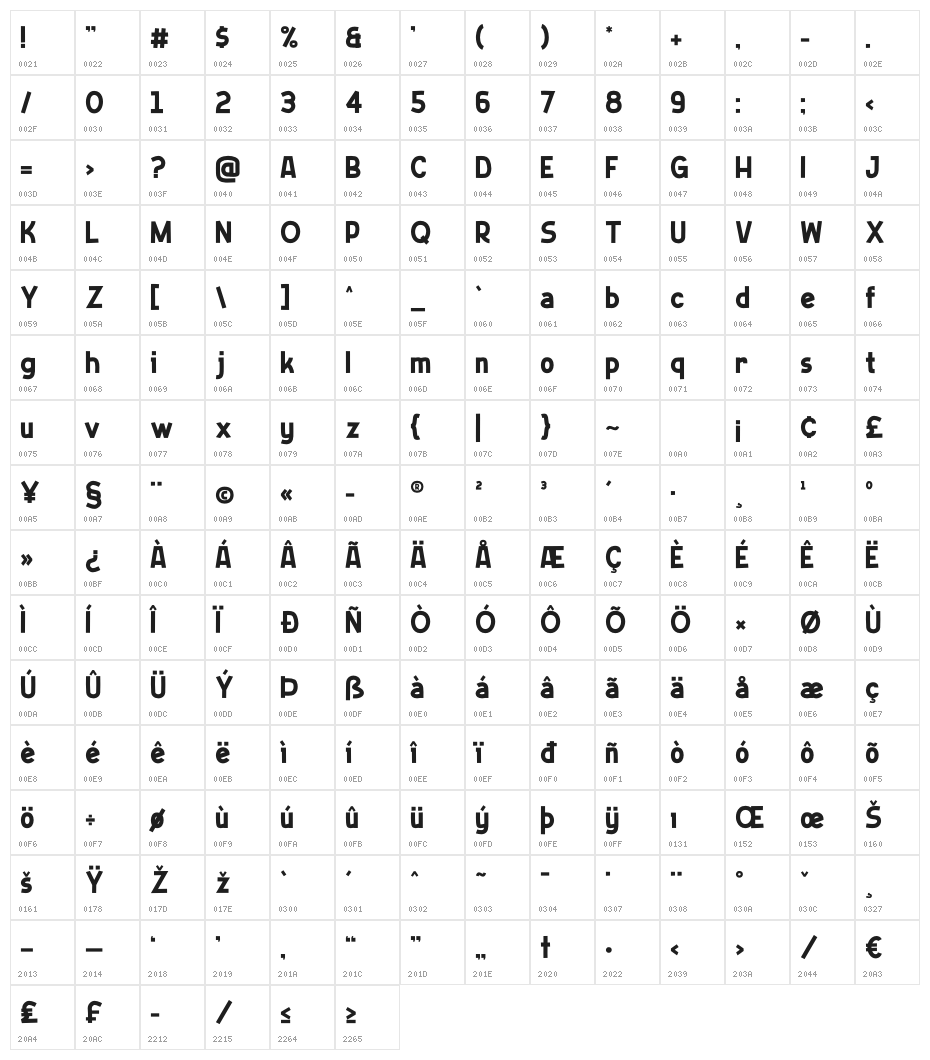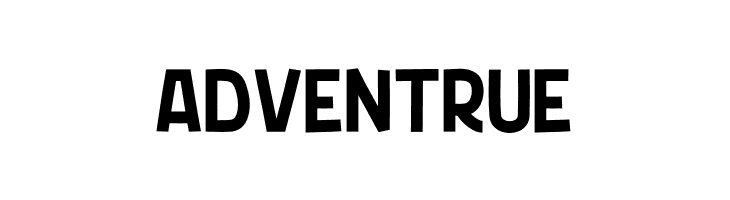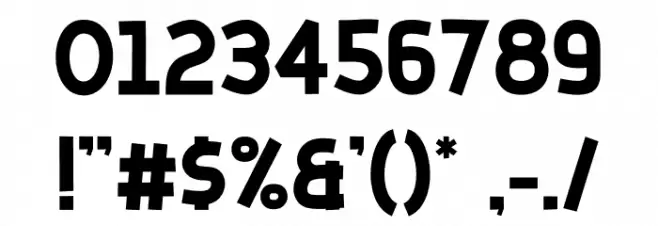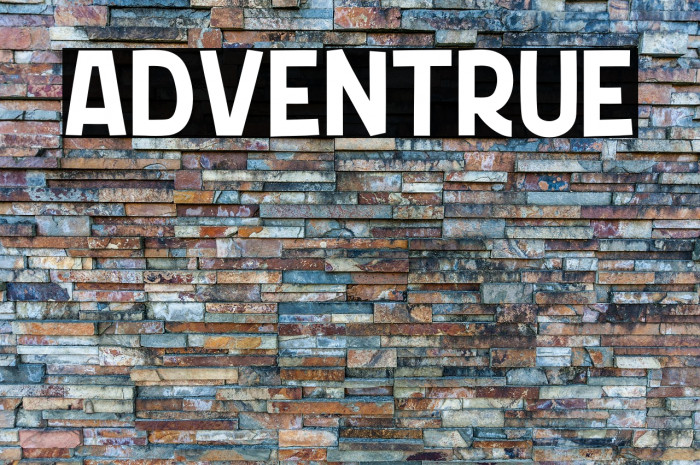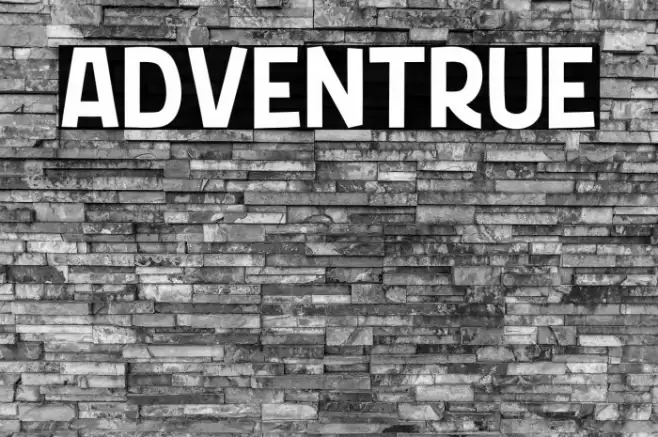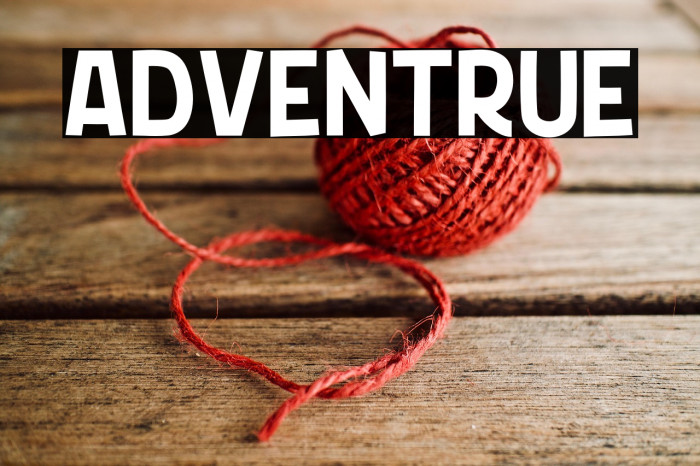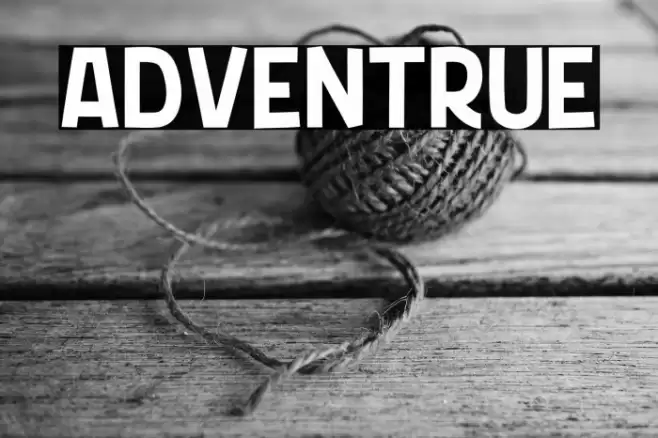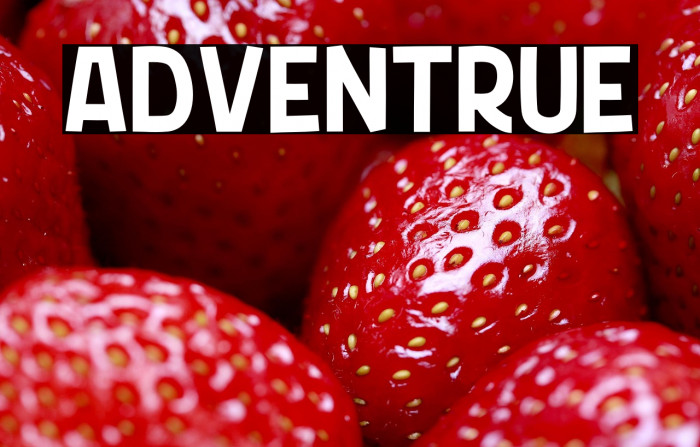
ADVENTRUE Font
ADVENTRUE Description
This font features a bold and playful style with a slightly irregular and hand-drawn appearance. The uppercase letters are robust and slightly condensed, giving a strong presence. The lowercase letters maintain a consistent style with a slight tilt, adding a dynamic feel. The numerals are bold and clear, ensuring readability. Special characters are well-integrated, maintaining the playful and bold aesthetic. The overall design is suitable for projects that require a fun and engaging look, such as children's books, posters, and branding for playful products.
| Width | Condensed |
| Overall Style | Playful, Hand-drawn |
| Use Case | Headlines, Posters, Branding |
| Proposed Projects | Ideal for children's books, playful branding, posters, and creative projects. |